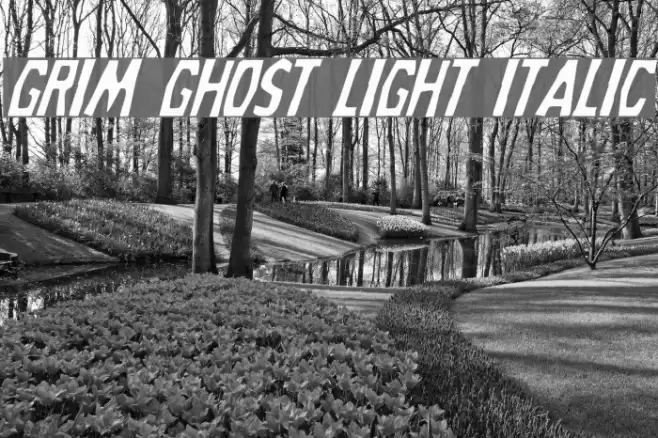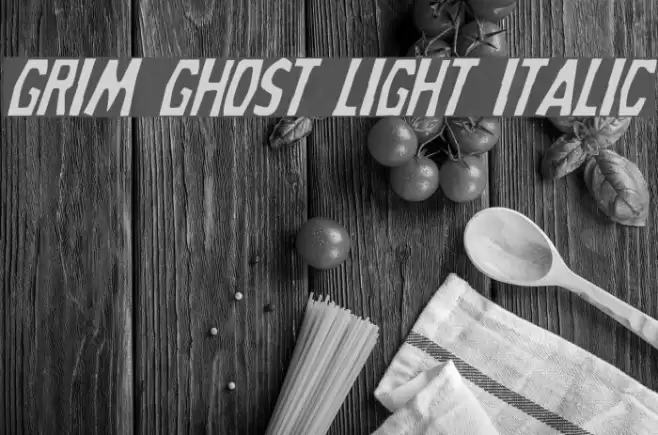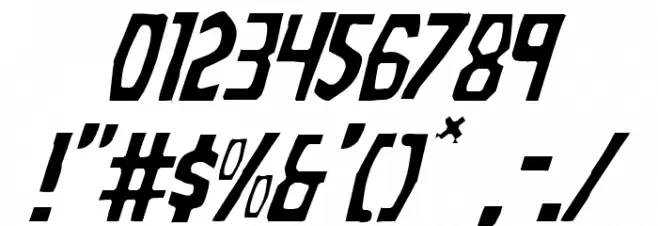
Grim Ghost Light Italic Font
Grim Ghost Light Italic Description
This font features a bold, italicized style with sharp, angular edges and a dynamic slant that gives it a sense of movement and energy. The characters are tightly spaced, enhancing its compact and impactful appearance. The uppercase letters are particularly striking, with a distinctive geometric flair that makes them stand out. The numerals and special characters maintain this bold aesthetic, ensuring consistency across all glyphs. This font's unique style is both modern and edgy, making it suitable for projects that require a strong visual impact.
A bold, italicized font with sharp angles and a dynamic slant from Uncategorized fonts.
- Proposed Projects: Ideal for branding, posters, and headlines where a strong, modern impact is desired.
- Character Spacing: Tight